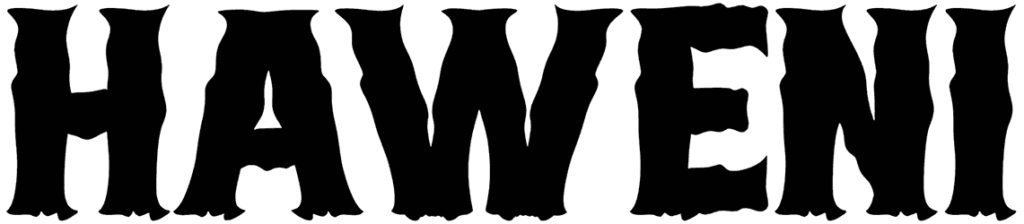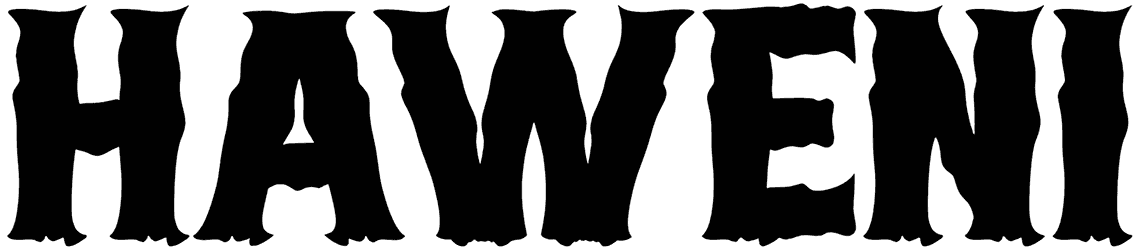
Haweni Font
If you are looking for something spicy and raw, try Haweni. A clever choice of this Halloween font can use familiar grunge against bold lines and square letters, making it perfect for rock concerts, costume designs, and tattoo parlor signs. This holiday font is easily the favorite of any designer who wants to celebrate Halloween this year differently without the presence of numbers.